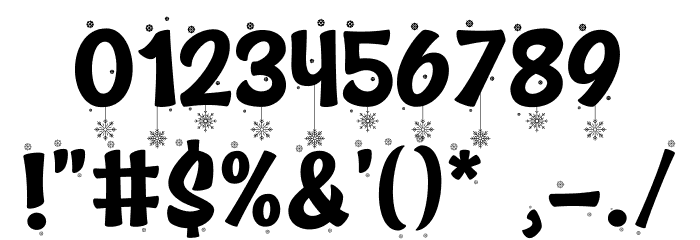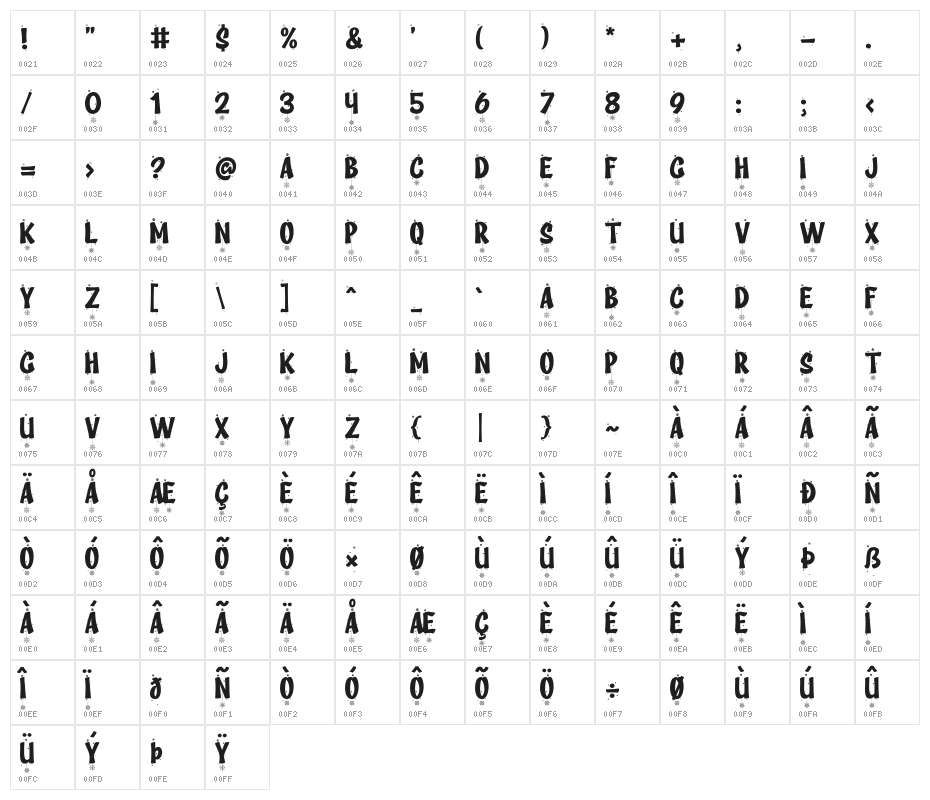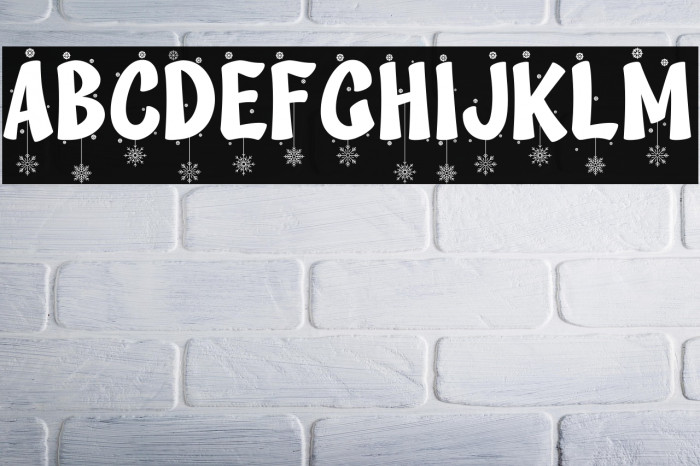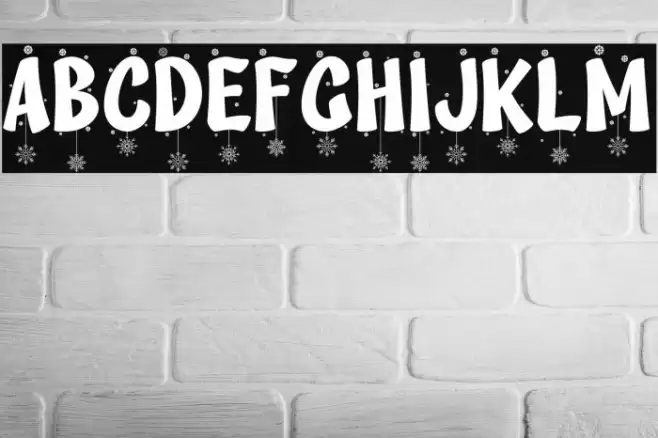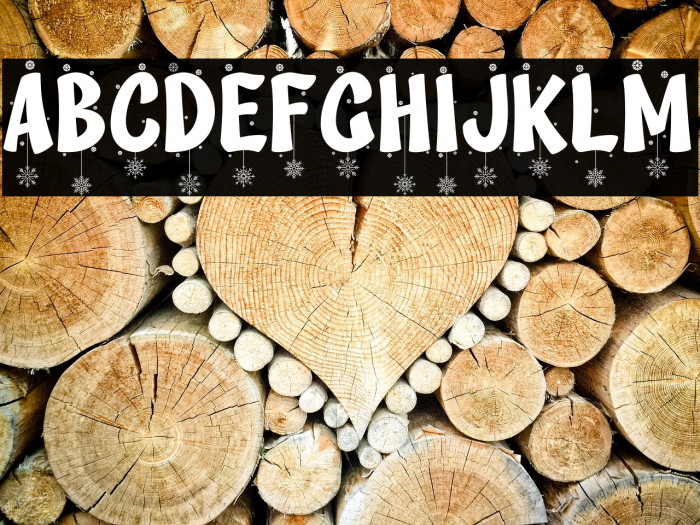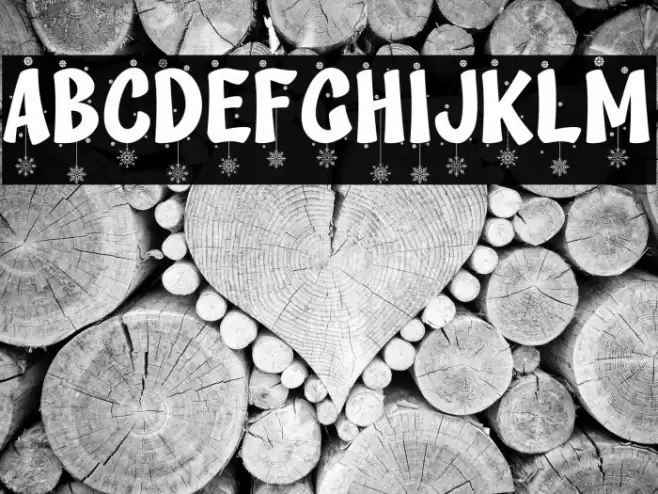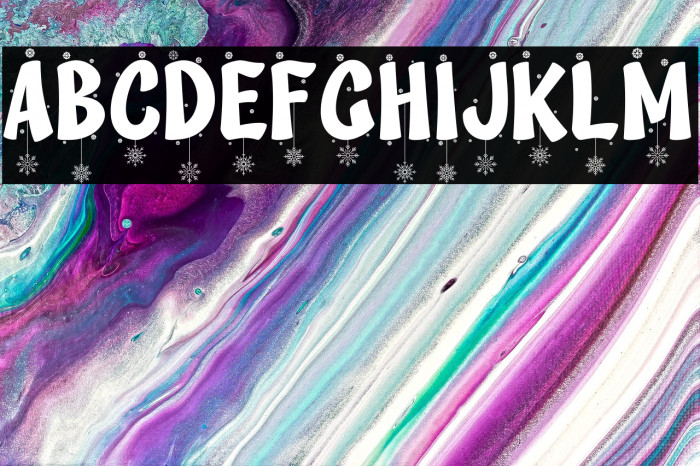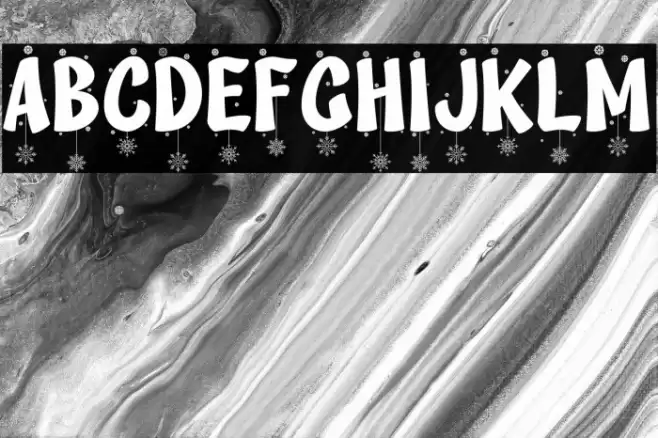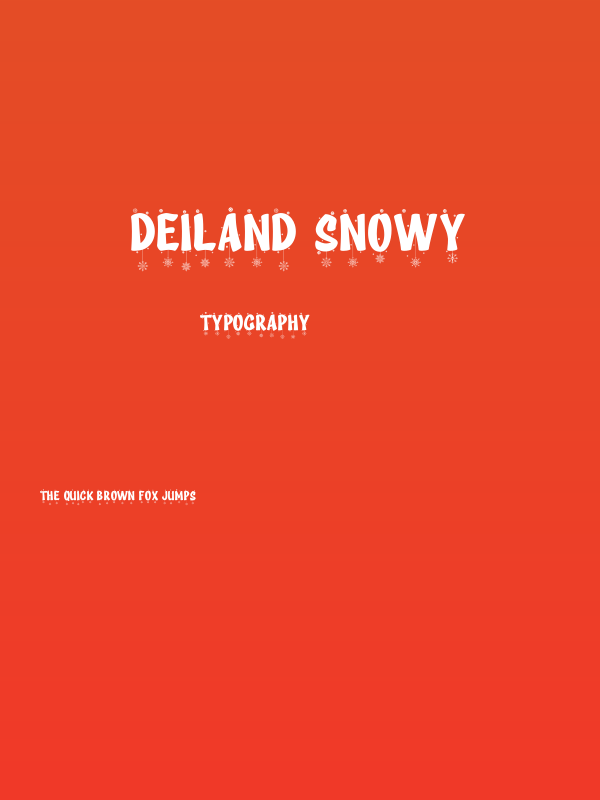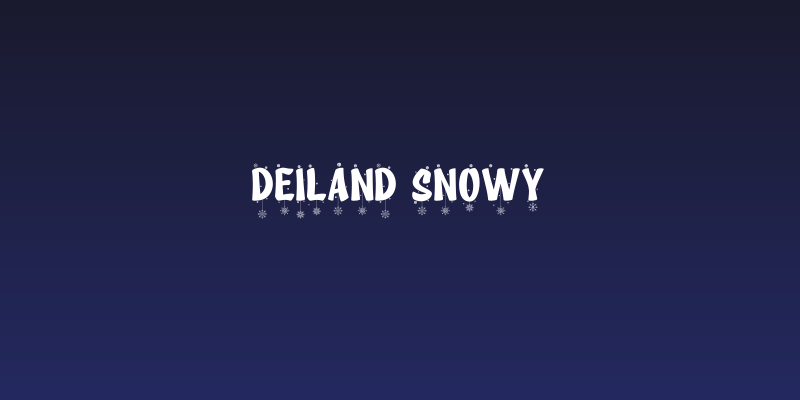
Deiland Snowy Font
Deiland Snowy Description
This playful and festive font features bold, rounded characters adorned with whimsical snowflake accents, creating a wintery, cheerful vibe. The letters are slightly irregular, adding a handcrafted feel, while maintaining a consistent weight that ensures readability. The snowflakes are integrated into the design, appearing as if they are gently falling onto each character, enhancing the seasonal theme. This font is perfect for holiday-themed projects, offering a unique blend of fun and elegance. Its boldness makes it stand out, while the decorative elements add a touch of charm.
| Proposed Projects | Ideal for holiday cards, festive banners, winter event posters, and seasonal branding. |